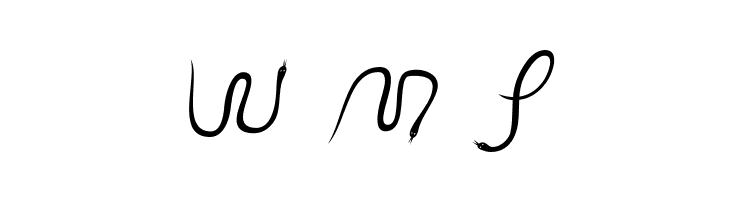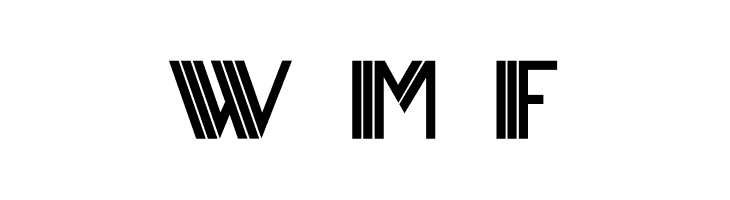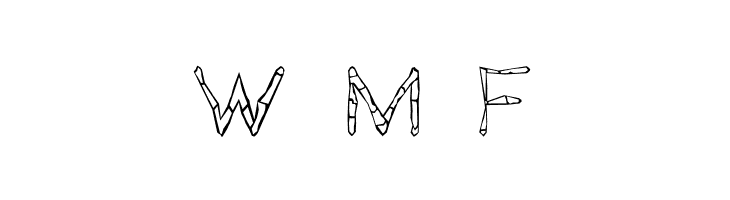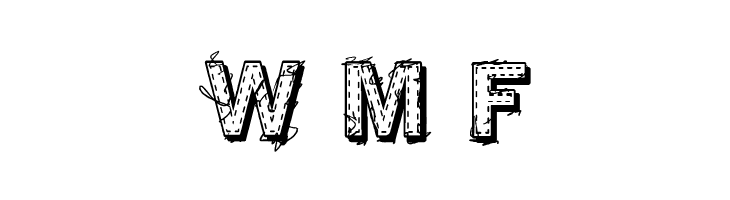
A bold, geometric font with strong vertical lines and sharp angles.
An abstract, artistic font with whimsical, illustrative characters.
A creative display font featuring geometric shapes and eye motifs.
Surreal, illustrated display font with narrative scenes for each character.
A versatile set of clear and simple pictograms for public and transportation use.
A decorative and intricate font with geometric and ornamental details.
A bold, zigzag-patterned font with a dynamic and playful style.
A grid-based, geometric font with a modern, technical aesthetic.
Illustrative display font with Western historical and mythological themes.
A retro dot matrix font with a digital, tech-inspired aesthetic.
A dot matrix style font with a modern, playful appearance.
A pixelated, grid-based font resembling electronic highway signs with a digital, retro aesthetic.
A dot-matrix style font with a retro, pixelated appearance.
A bold, stencil-style font with sharp angles and cutouts, offering a rugged and industrial look.
A modern, dotted font with a playful and tech-savvy aesthetic.
A bold, geometric font with a filled, block-like appearance.
A dot-matrix style font with a retro digital display aesthetic.
A textured, embroidery-inspired font with a bold, handcrafted look.
A bold, italic, pixelated font with a retro digital aesthetic.
A bold, pixelated font with a retro digital style.
A retro dot matrix font inspired by vintage pinball displays.